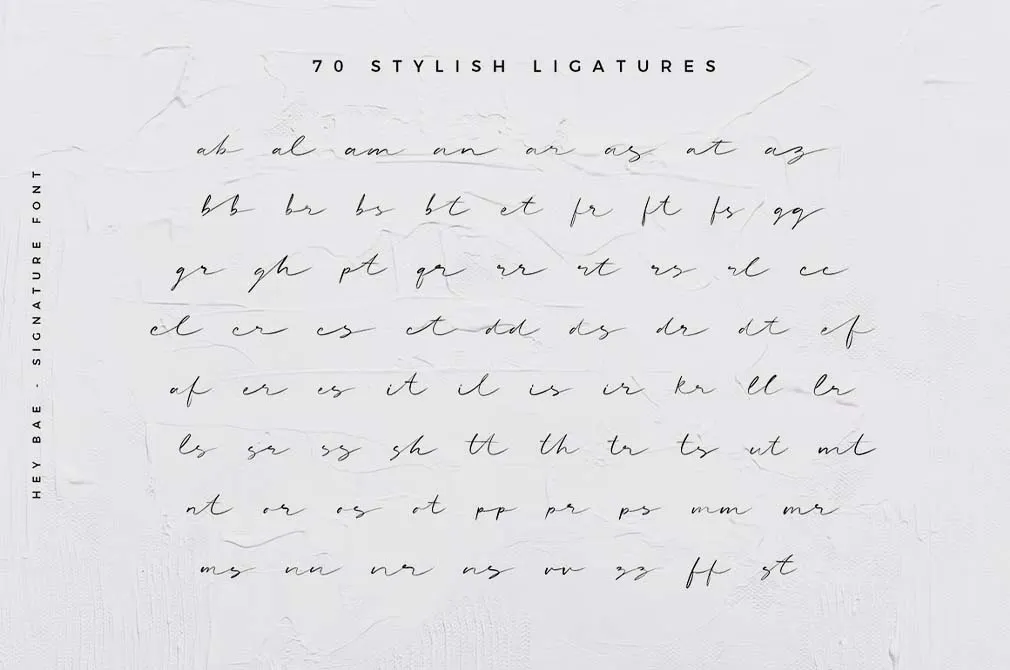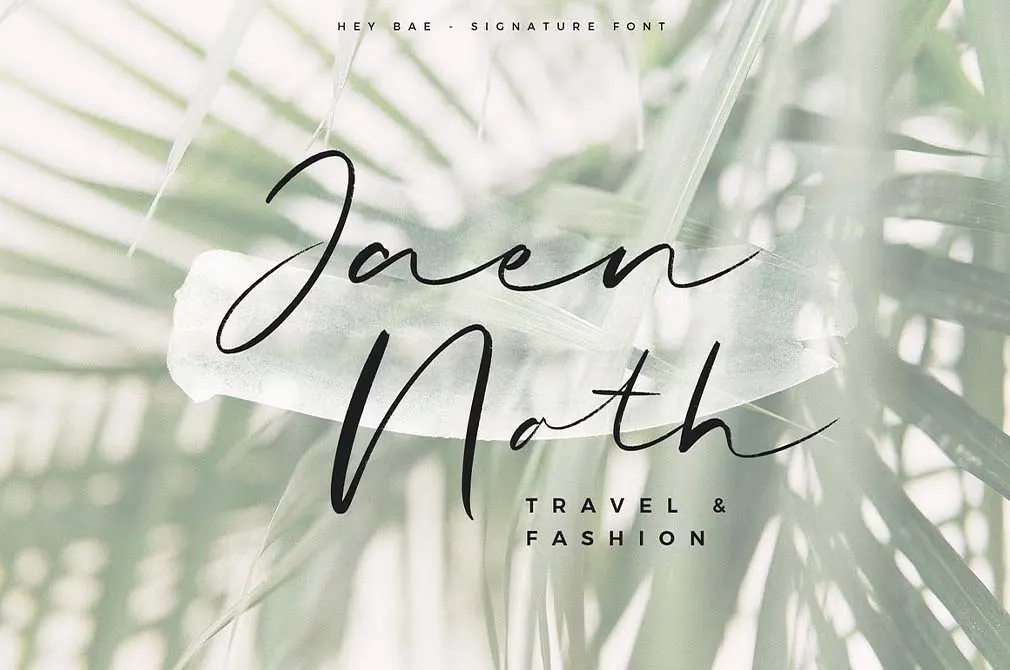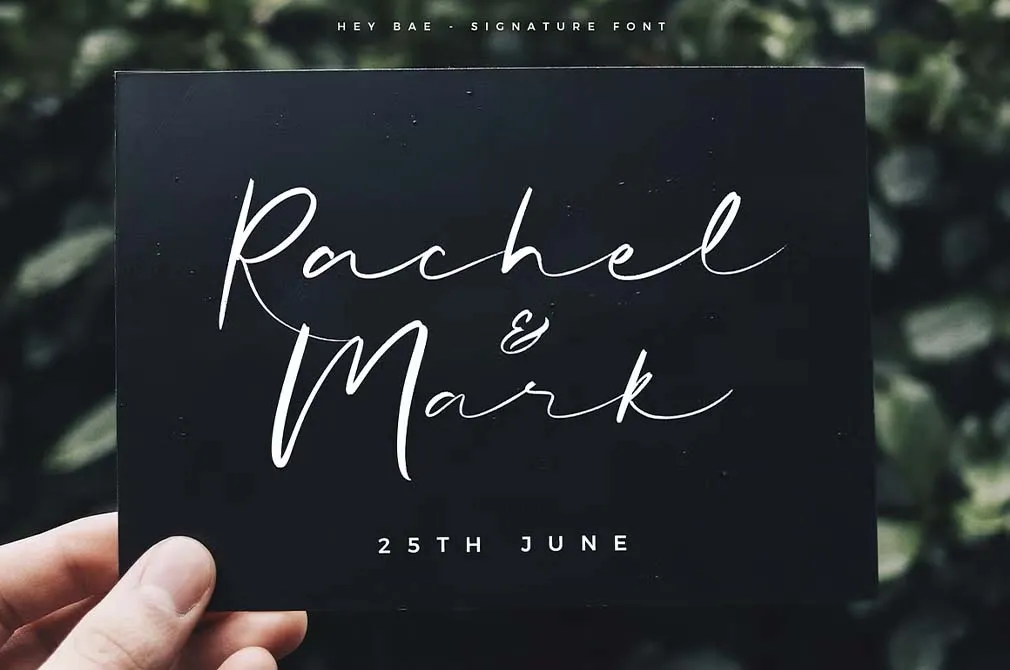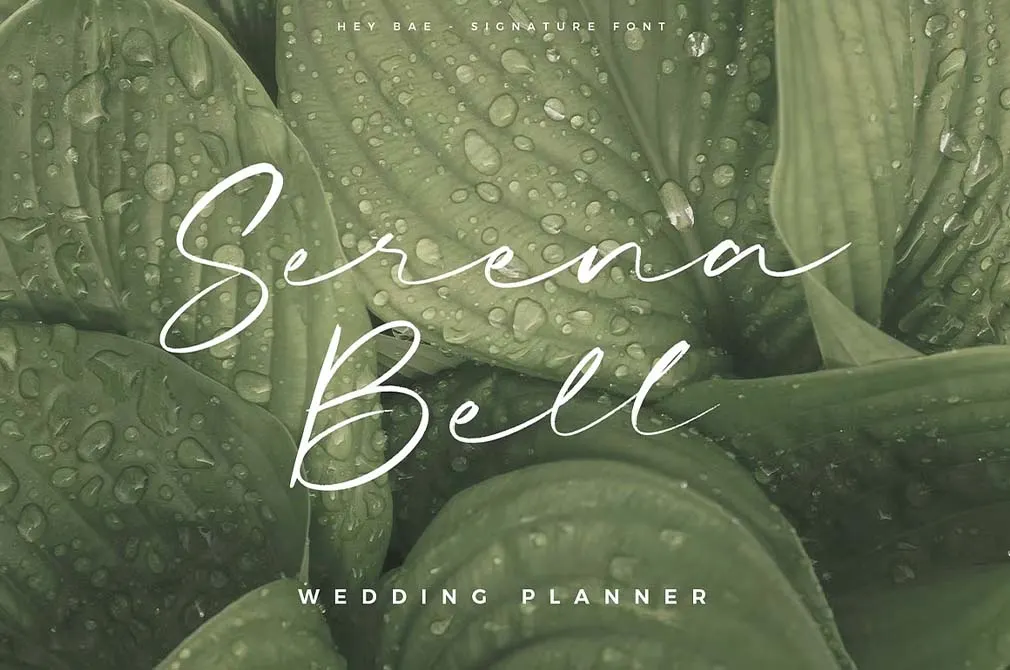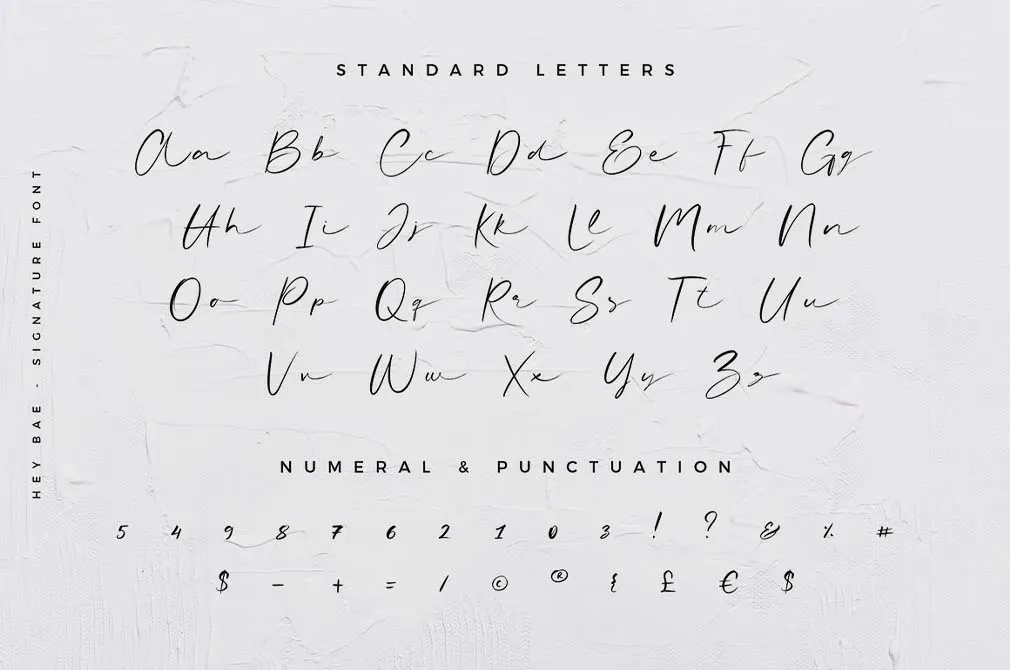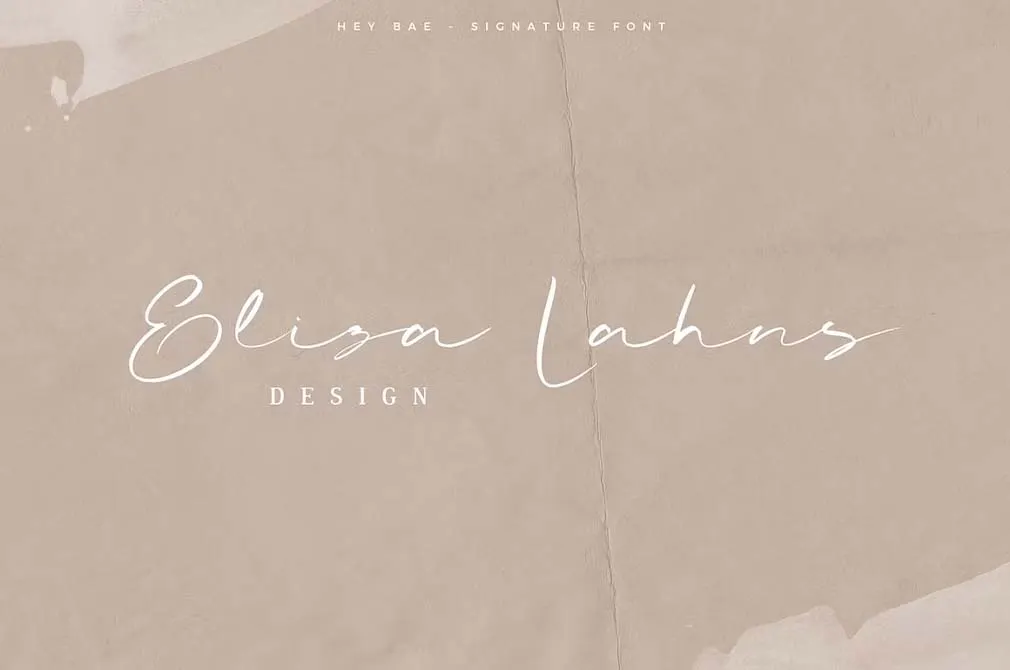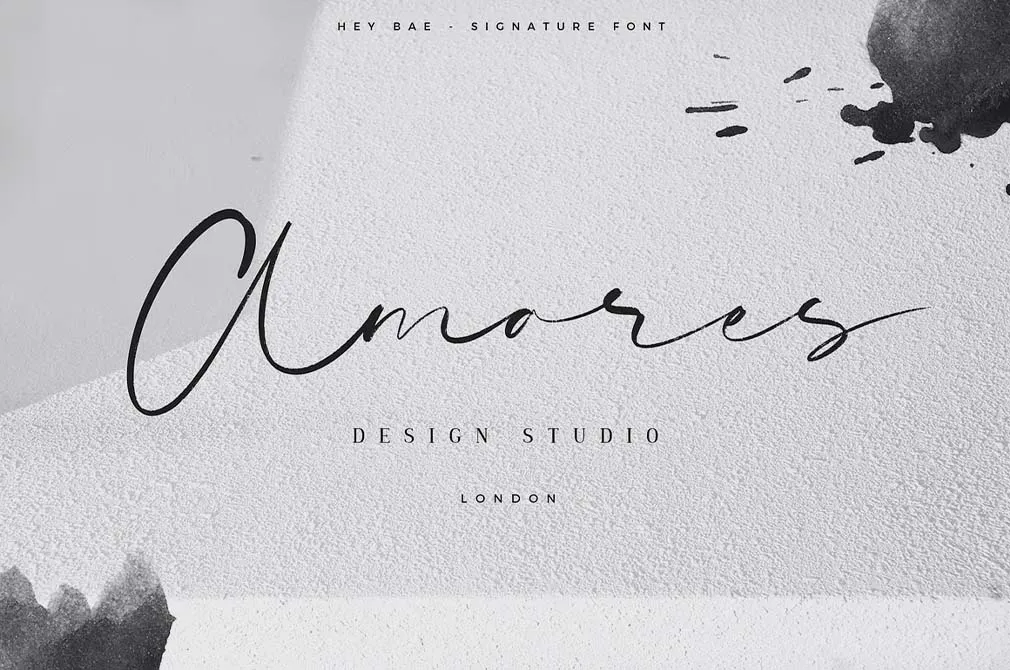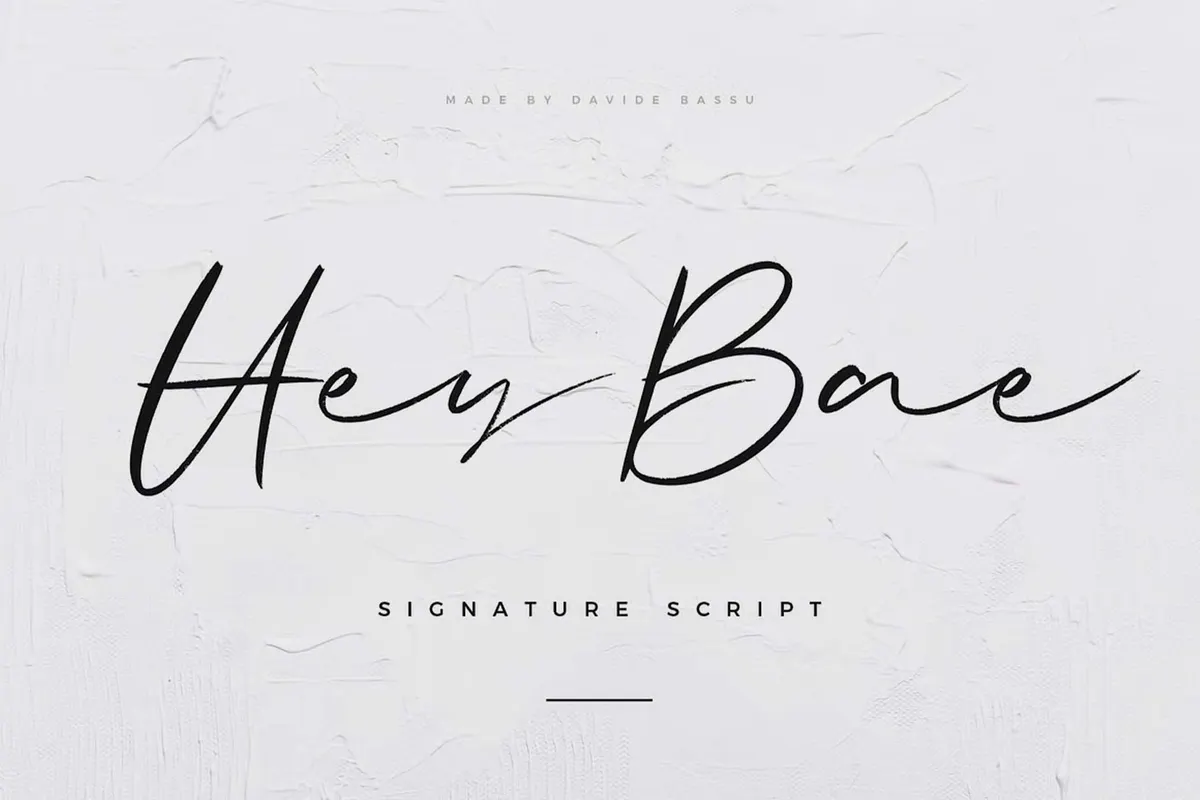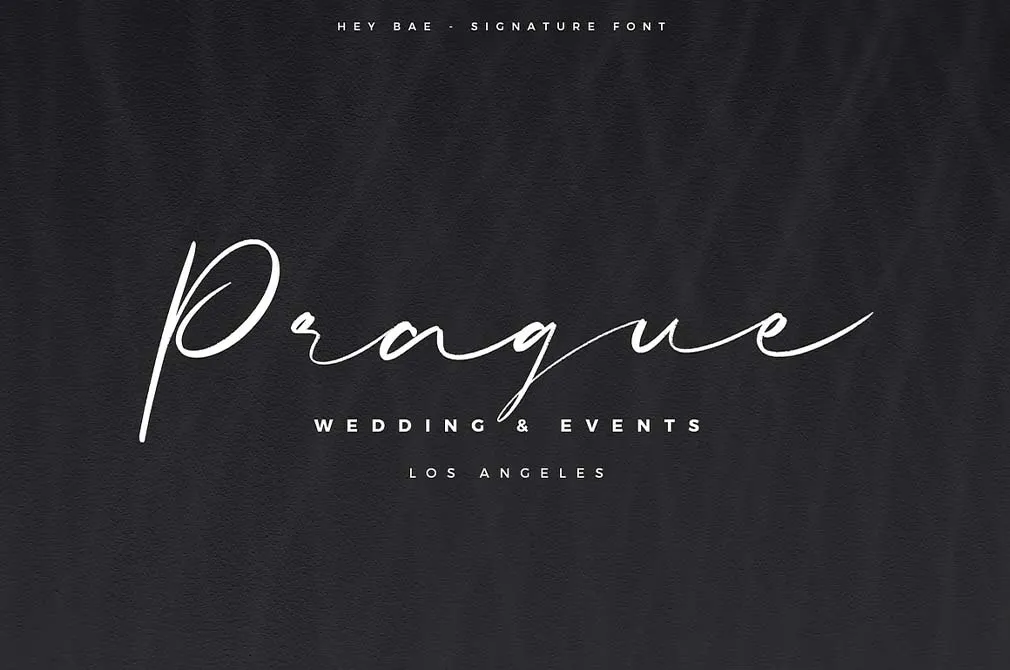
Hey Bae — Signature Script
HeyBaeScript
We all dream of exquisite handwriting to be proud of and use it as a design asset. But let's be honest, ain't nobody got time for it. Mastering calligraphy is tedious. This way comes the script font.
Hey Bay is a sleek modern signature script with a relaxed and lingering character. It will be suitable for logos, branding, social media posts of Instagram stories designs, and of course wedding invitations. The font file contains the standard set of upper and lowercase letters as well as numerals and punctuation. To give your design an even more realistic handwritten style you may also use over 70 ligatures assessed through the Open Type features.